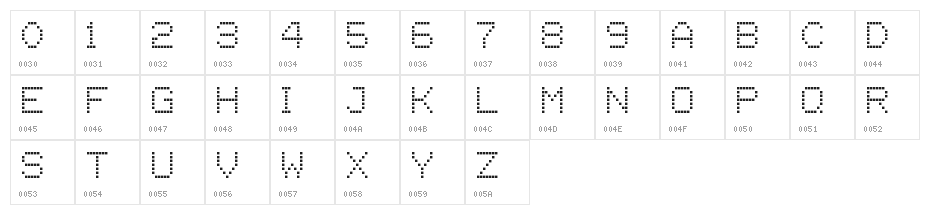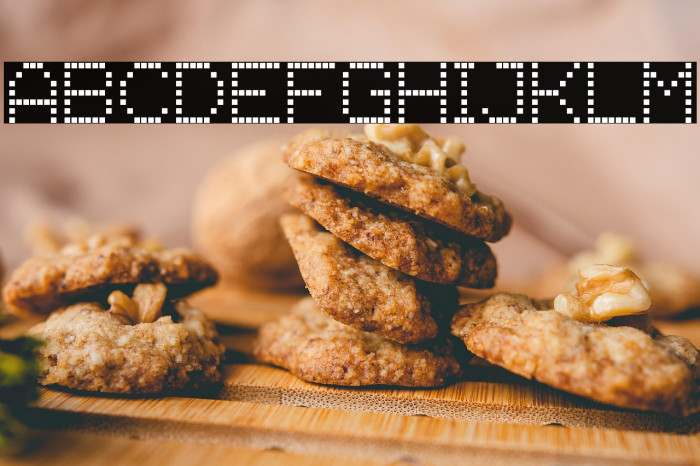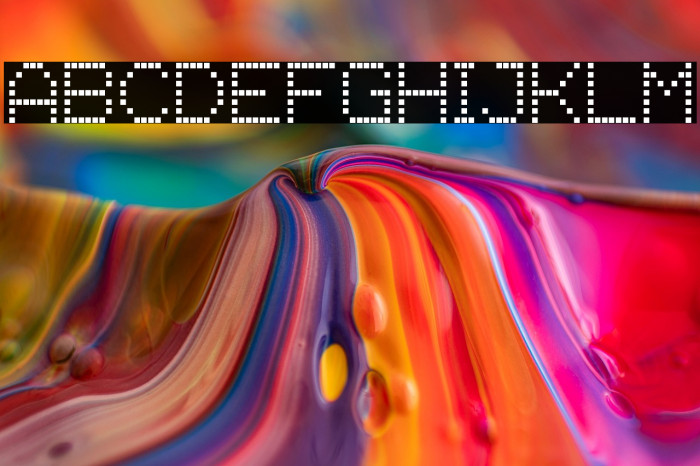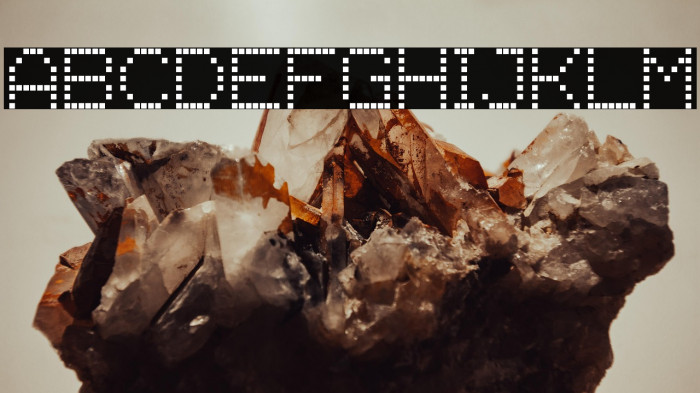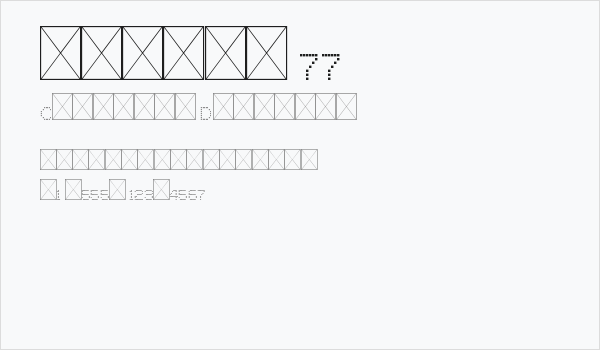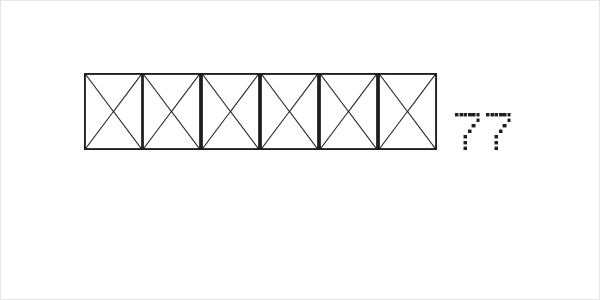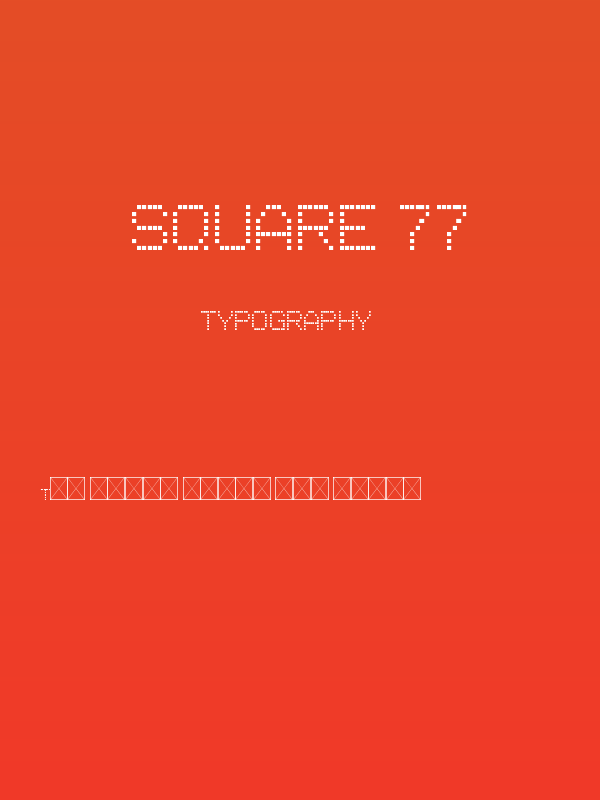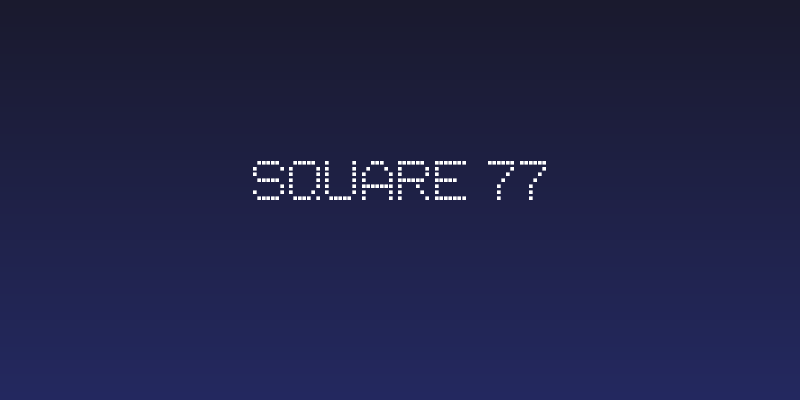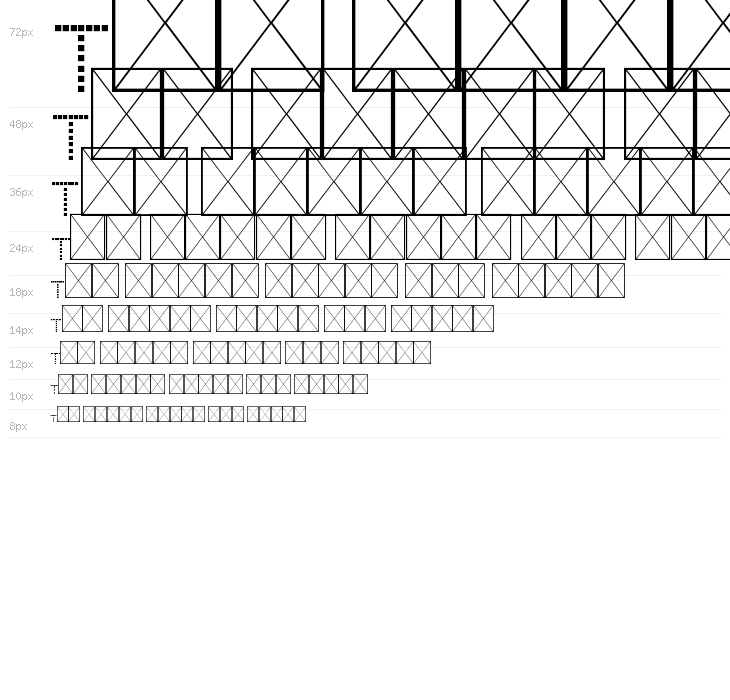
square 77 Font
square 77 Description
This font features a unique dot matrix style, where each character is composed of small, evenly spaced squares. The design is reminiscent of digital displays or retro computer screens, giving it a distinct technological and vintage feel. The characters are uniformly constructed, maintaining a consistent grid-like appearance across both uppercase and lowercase letters, as well as numbers and special symbols. This structured approach ensures high legibility, making it suitable for various digital applications. The font's geometric precision and uniformity make it stand out, offering a modern twist on classic pixelated typography.
| Overall Style | Modern, Vintage |
| Use Case | Logos, Digital displays, Tech interfaces |
| Proposed Projects | Ideal for digital displays, retro-themed designs, tech branding, and video game interfaces. |